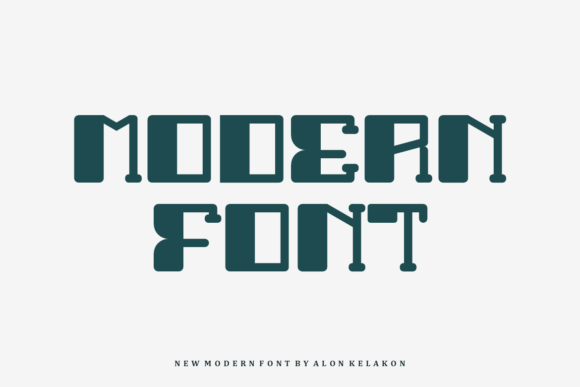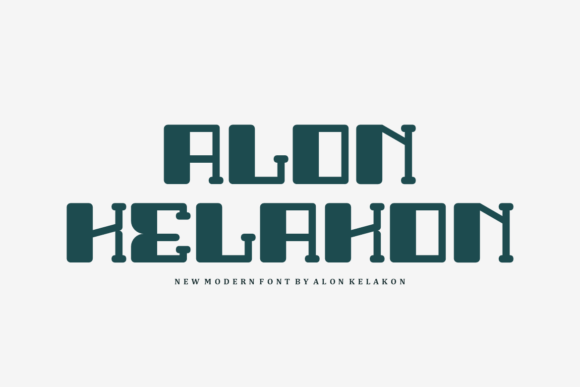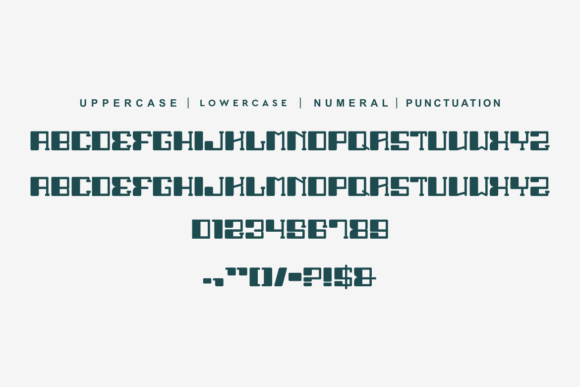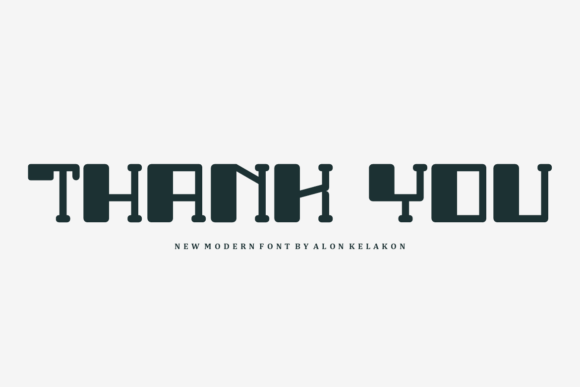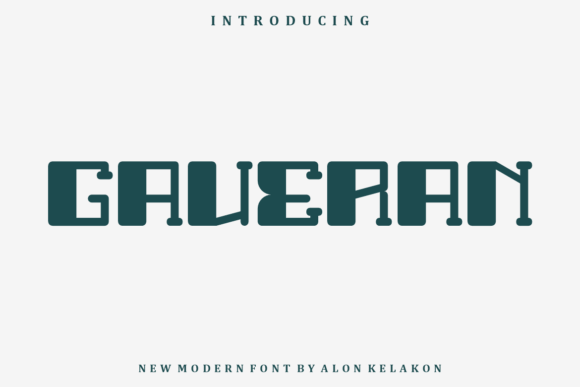
Gaveran Font: Elevate Your Designs with a Cool and Modern Display Font
In the world of typography, a font can make or break a design. It’s the foundation upon which creativity is built, and the right choice can elevate a project from ordinary to extraordinary. For designers and crafters looking to add a touch of modernity and coolness to their work, Gaveran Font is an excellent choice. This stunning display font is masterfully designed to become a true favorite, offering the potential to bring each of your creative ideas to the highest level.
What Makes Gaveran Font Stand Out?
Gaveran Font is not just another addition to the vast sea of typefaces available today. It stands out for several reasons:
- Unique Design: Gaveran boasts a unique and modern design that instantly captures attention. Its sleek lines and contemporary look make it perfect for projects that demand a fresh and stylish feel.
- Versatility: While it’s categorized as a display font, Gaveran’s versatility allows it to be used across various design projects, from branding and advertising to digital media and crafting.
- Legibility: Despite its modern and stylized appearance, Gaveran maintains high legibility, ensuring that your message is conveyed clearly and effectively.
- Emotional Connection: Fonts have the power to evoke emotions, and Gaveran is no exception. Its cool and modern vibe can add a sophisticated touch to your designs, making them more engaging and appealing to your audience.
Who Can Benefit from Gaveran Font?
Gaveran Font is a valuable asset for a wide range of designers and crafters, including:
- Graphic Designers: Whether you’re working on a branding project, an advertisement, or a digital campaign, Gaveran can add that extra wow factor that sets your work apart.
- Digital Artists and Illustrators: For those who incorporate text into their digital art, Gaveran offers a modern and trendy look that can complement and enhance your illustrations.
- Crafters and Makers: If you’re involved in crafting or making, Gaveran can be used in a variety of DIY projects, such as handmade cards, posters, and signage, to give them a professional and stylish appearance.
- Web Designers: With the increasing importance of digital presence, Gaveran can be a great choice for web headers, titles, and other display text, helping to create a memorable user experience.
How to Use Gaveran Font Effectively
To maximize the impact of Gaveran Font, consider the following tips:
- Pair it with Complementary Fonts: When using Gaveran for headings or titles, pair it with a simpler, more readable font for body text to create visual hierarchy and balance.
- Experiment with Sizes and Colors: Don’t be afraid to experiment with different sizes and colors to make Gaveran stand out or blend in, depending on your design needs.
- Consider the Context: Ensure that Gaveran aligns with the tone and style of your project. Its modern and cool vibe makes it suitable for a wide range of themes, but it’s essential to consider the overall aesthetic you’re aiming for.
Gaveran Font is more than just a cool and modern display font; it’s a tool that can elevate your designs and bring your creative ideas to life. Its unique design, versatility, and legibility make it an excellent choice for designers and crafters looking to add a touch of sophistication and modernity to their projects. Whether you’re working on a branding campaign, a digital project, or a crafting endeavor, Gaveran Font has the potential to become your go-to typeface for creating visually stunning and impactful designs.